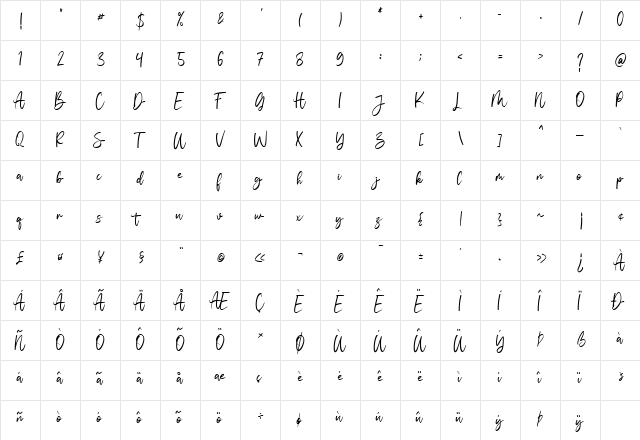
Vivy Aquilla Regular
Design Context for Vivy Aquilla Typeface
Vivy Aquilla is a composed and adaptable typeface that performs quietly and consistently across a wide range of design contexts.